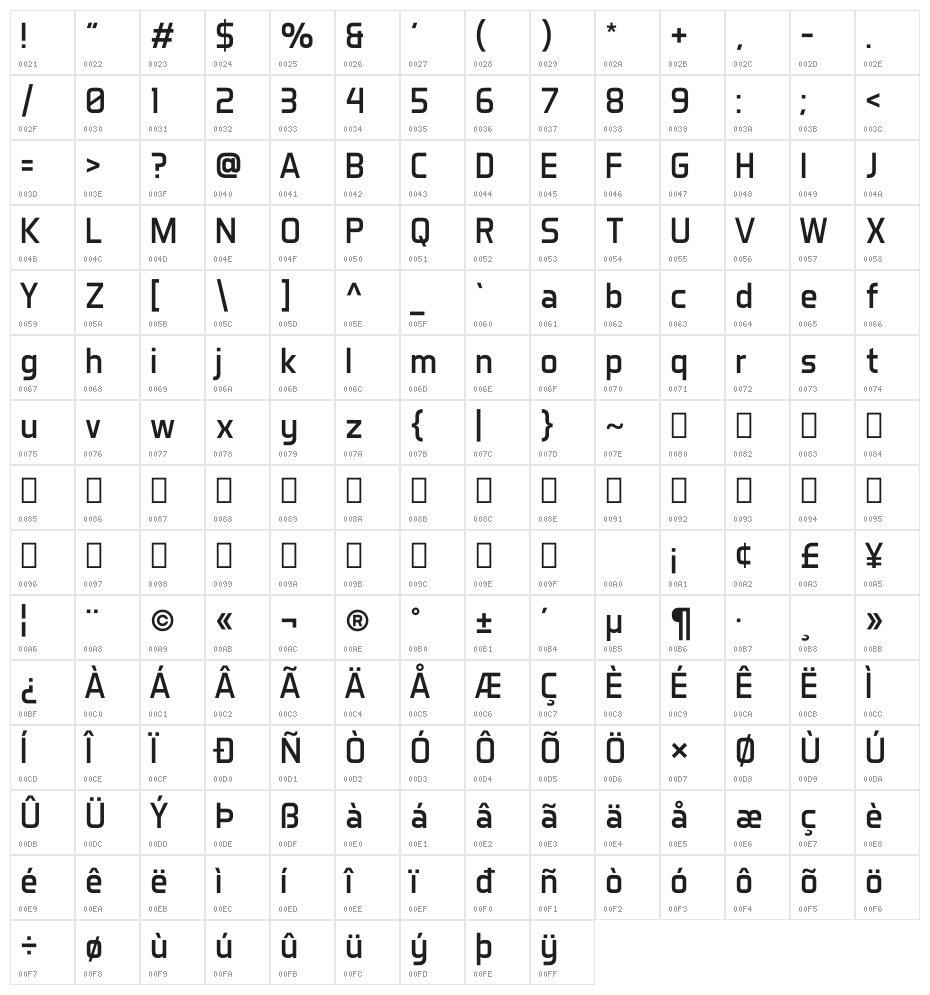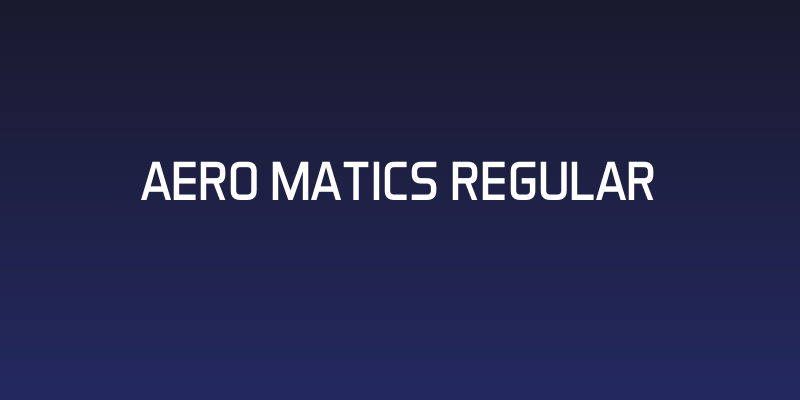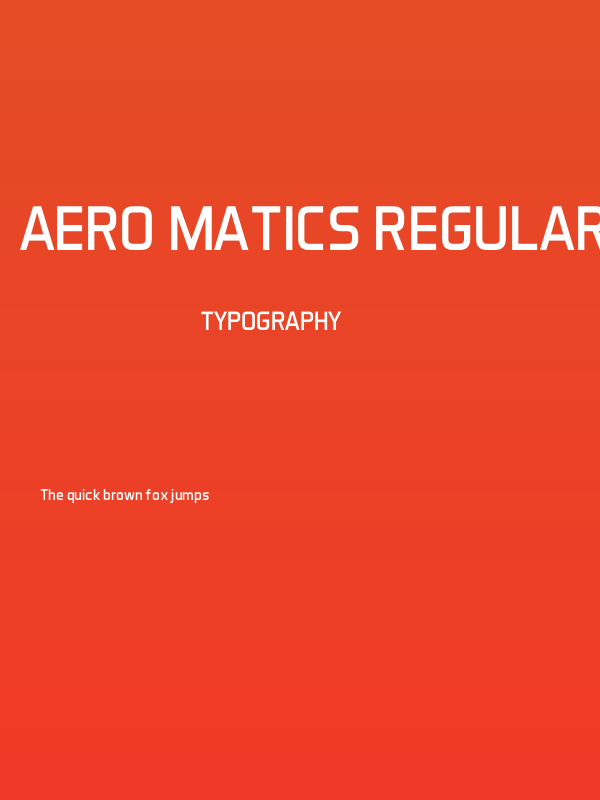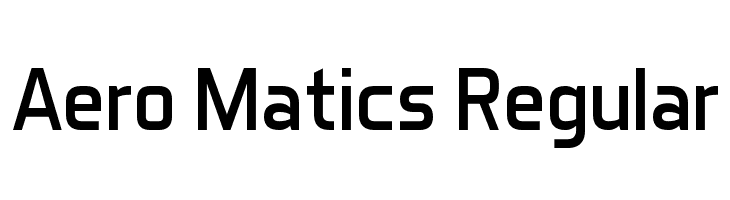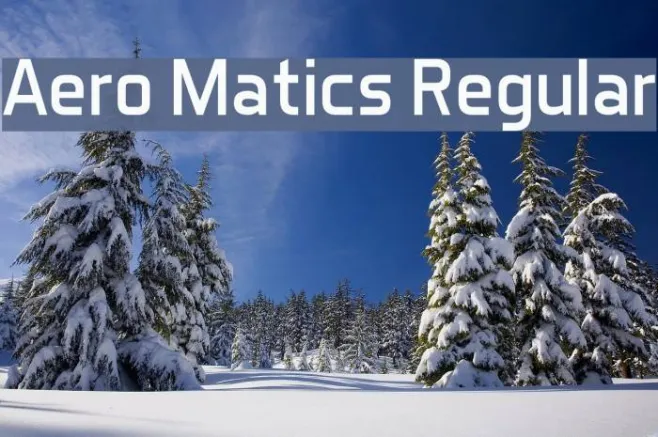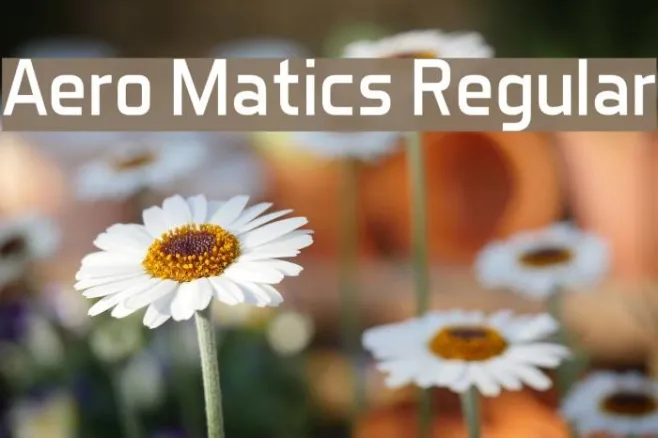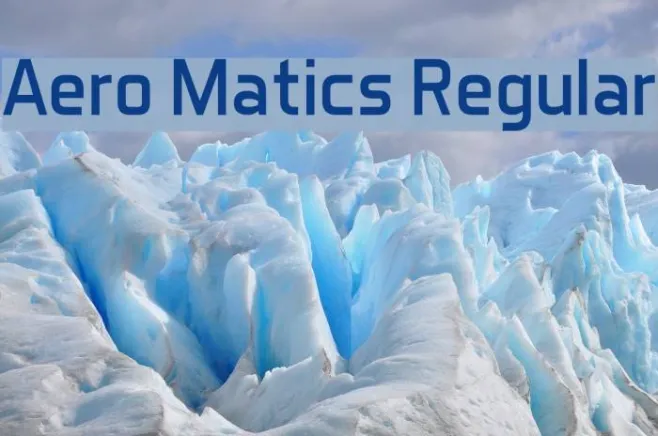
Aero Matics Regular Font
This font features a clean and modern sans-serif design with a geometric structure. The characters are well-proportioned, offering a balanced and uniform appearance. The uppercase letters are bold and assertive, while the lowercase letters maintain a consistent style that complements the uppercase. The numerals are clear and easy to read, making them suitable for various applications. Special characters are distinct and maintain the overall aesthetic of the font. The design is versatile, making it suitable for both digital and print media.
| Proposed Projects | Ideal for branding, advertising, web design, and editorial layouts due to its clarity and modern appeal. |